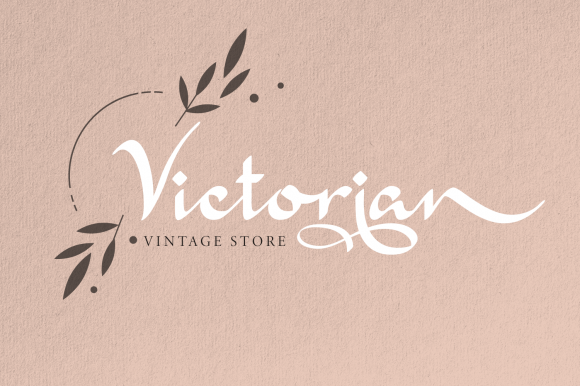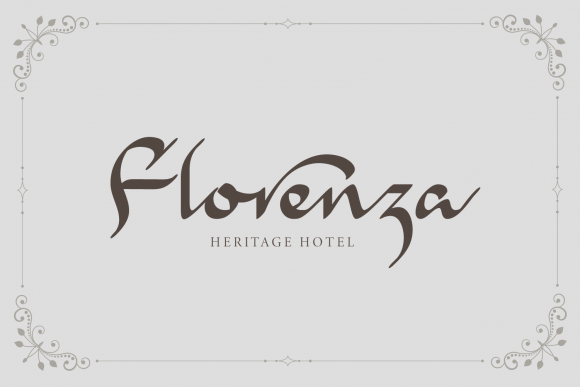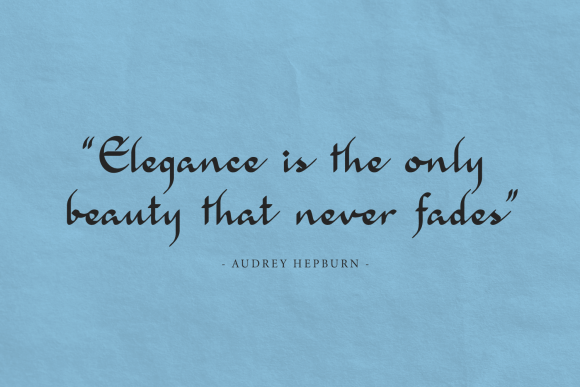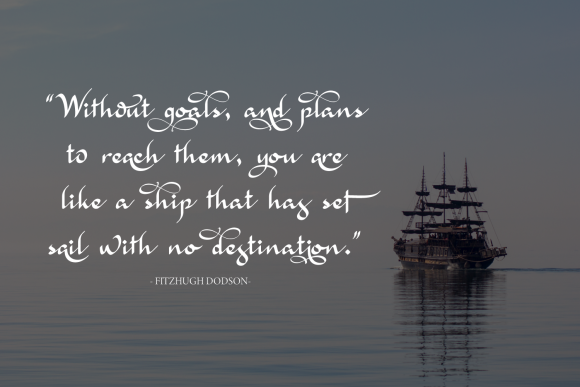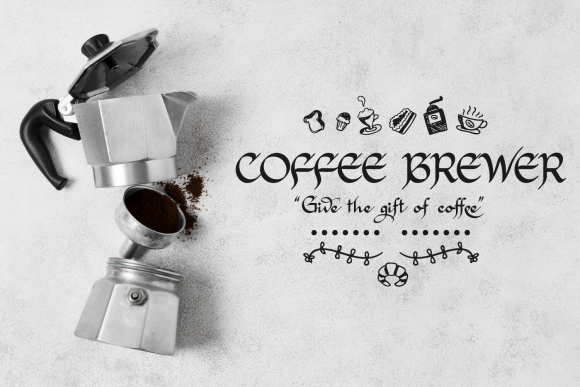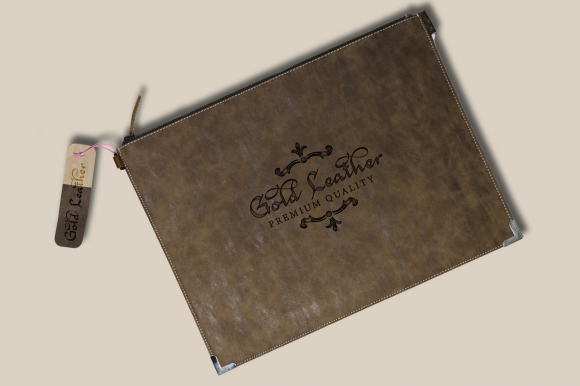
Introducing Engrave Font: Elevate Your Designs with Elegance and Sophistication
Are you a designer or crafter looking for a font that can add a touch of luxury to your projects? Look no further than Engrave Font, a beautiful light handwritten font that is sure to make your designs stand out. With its unique feel and stunning impact, Engrave Font is the perfect choice for anyone looking to elevate their designs and add a touch of sophistication.
What Makes Engrave Font So Special?
Engrave Font is a truly unique font that offers a range of features that set it apart from other fonts. Here are just a few of the things that make Engrave Font so special:
- Light Handwritten Style: Engrave Font has a light handwritten style that is both elegant and refined. The font’s delicate lines and curves give it a sophisticated feel that is perfect for designs that require a touch of luxury.
- Unique Feel: Engrave Font has a unique feel that is unlike any other font. Its distinctive style is sure to make your designs stand out and leave a lasting impression.
- PUA Encoded: Engrave Font is PUA encoded, which means that you can access all of the amazing glyphs and ligatures with ease. This makes it easy to use the font in a variety of design projects, from logos and branding to packaging and more.
How to Use Engrave Font in Your Designs
Engrave Font is a versatile font that can be used in a wide range of design projects. Here are just a few ideas for how you can use Engrave Font in your designs:
- Logos and Branding: Engrave Font is perfect for logos and branding projects that require a touch of elegance and sophistication. The font’s unique feel and stunning impact make it ideal for creating memorable and effective logos.
- Packaging Design: Engrave Font is also great for packaging design projects, such as labels, tags, and more. The font’s light handwritten style and delicate lines make it perfect for creating beautiful and eye-catching packaging.
- Stationery and Invitations: Engrave Font is a great choice for stationery and invitation design projects, such as wedding invitations, business cards, and more. The font’s elegant style and sophisticated feel make it perfect for creating beautiful and memorable stationery.
Tips for Getting the Most Out of Engrave Font
Here are a few tips for getting the most out of Engrave Font:
- Experiment with Different Sizes and Colors: Engrave Font looks great in a variety of sizes and colors. Experiment with different sizes and colors to find the look that works best for your design.
- Use the Font’s Glyphs and Ligatures: Engrave Font’s PUA encoding makes it easy to access all of the amazing glyphs and ligatures. Use these special characters to add a touch of elegance and sophistication to your designs.
- Pair the Font with Other Fonts: Engrave Font pairs well with a variety of other fonts. Experiment with different font combinations to find the look that works best for your design.